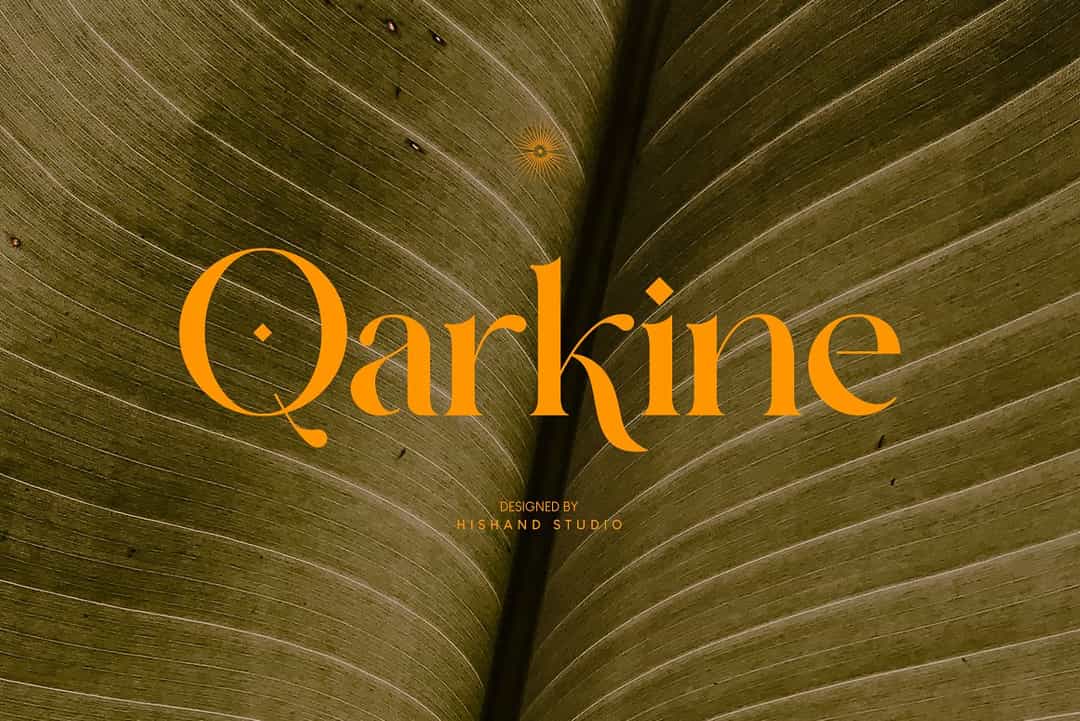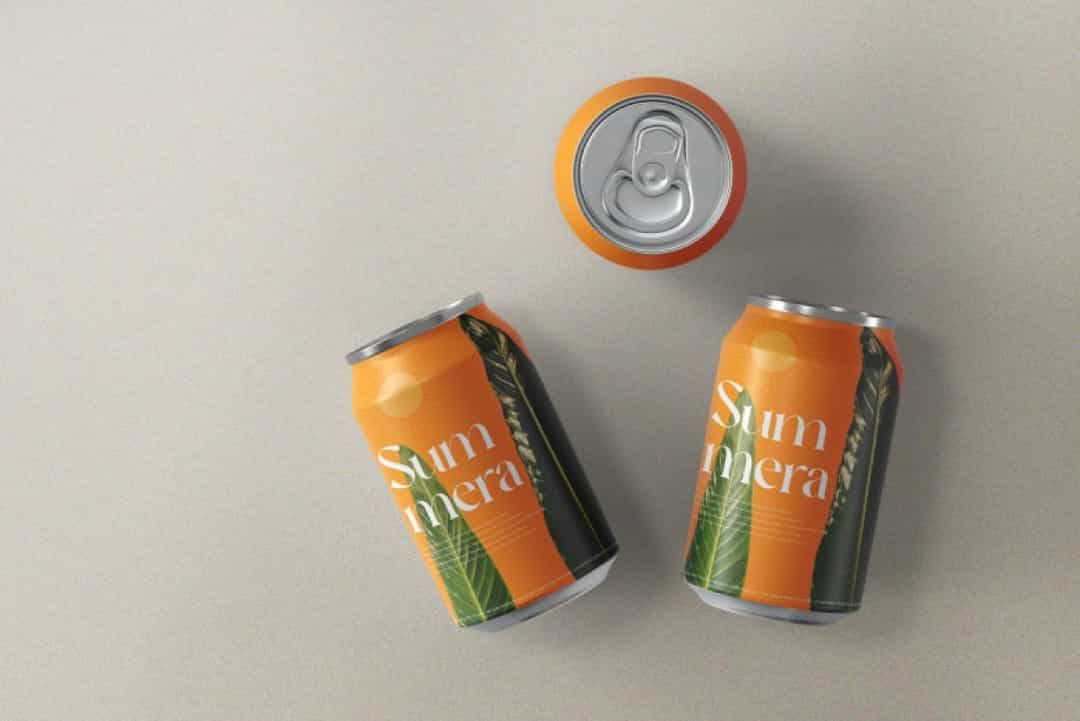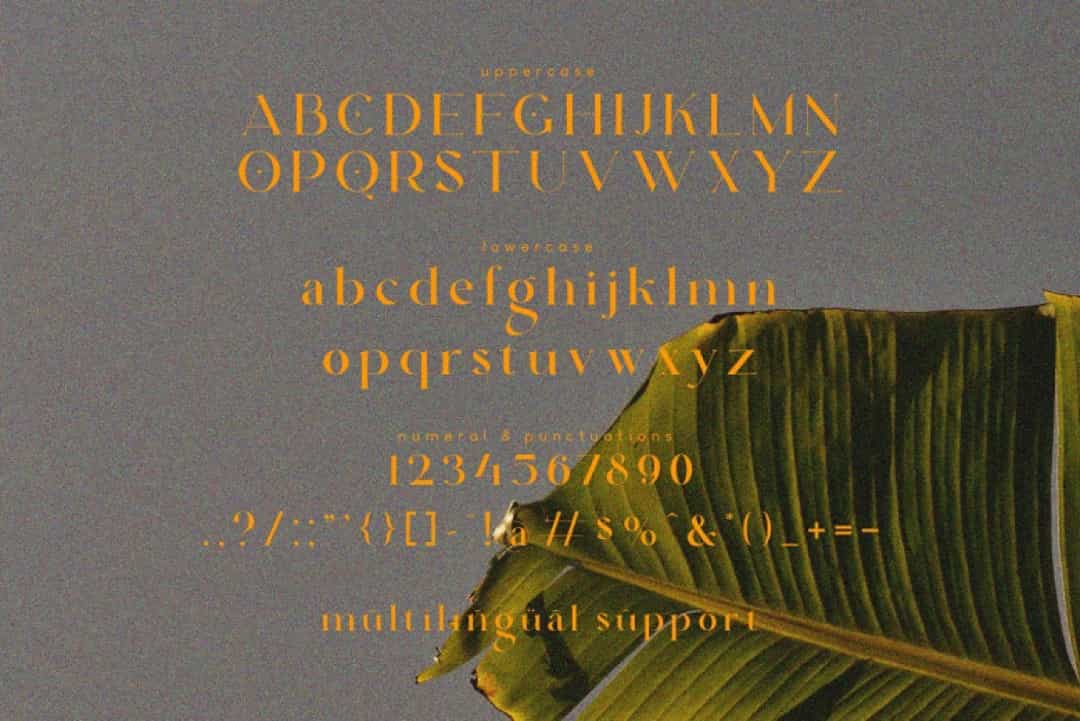
Discover the breathtaking elegance and sophistication of Qarkine font – it sets the benchmark for class and elegance in typography! Distinguished by its stylish yet classic aesthetic, Qarkine strikes the perfect balance between modernity and tradition, making it suitable for a range of design-related projects.